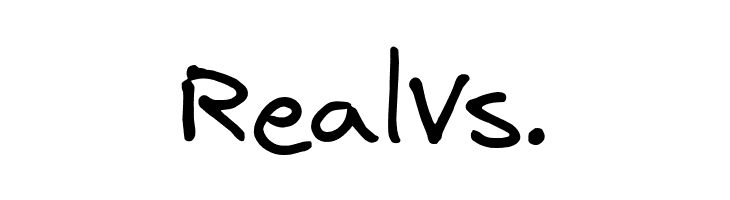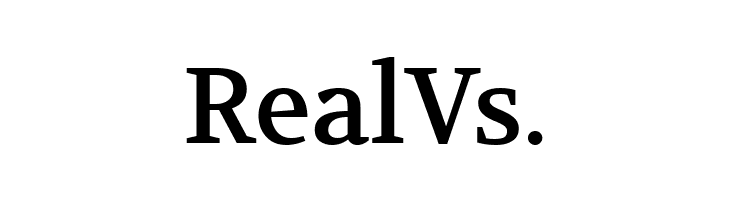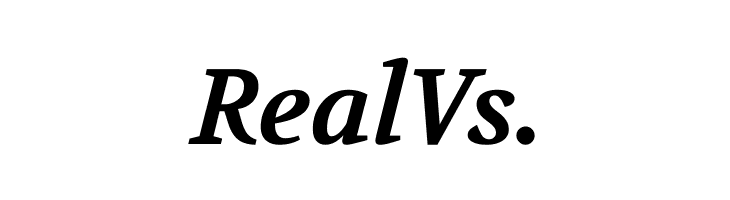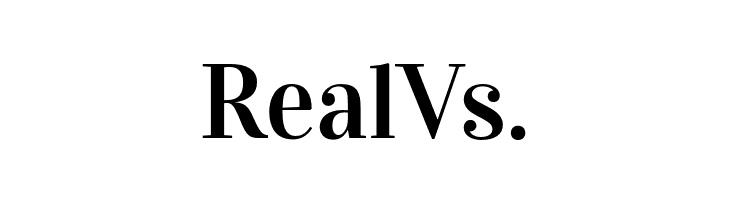
• Vidaloka-Regular
A classic serif font with high contrast and elegant strokes.
• Viga-Regular
A modern, geometric sans-serif font with a clean and professional appearance.
• VillaDidot
A decorative serif font with intricate line patterns and a vintage-modern appeal.
• VillaDidot-Black
A bold, high-contrast serif font with elegant and classic features.
• VillaDidot-Carved
A carved, textured serif font with a modern twist.
• VillaDidot-Cutout
A bold, cutout-style font with high contrast and geometric shapes.
• VillaDidot-Outline
An elegant outline serif font with high contrast and refined details.
• VILLAJUAREZ SON DISPLAY
A bold, geometric font with Art Deco influences and decorative frames.
• Vintage Decorative Signs 4
• VIP Roman Regular
A classic serif typeface with elegant proportions and refined strokes.
• VIPRoman-Regular
A classic serif font with elegant, balanced letterforms and pronounced serifs.
• Virgil3YOFF
A casual, handwritten font with a playful and approachable style.
• Visionaries
A bold, angular font with a three-dimensional, futuristic style.
• Visionaries 2
A bold, angular font with a futuristic and edgy design.
• Viva La Vida
• Voker
A futuristic, geometric font with blocky, angular letterforms.
• Volkhov Bold
A bold serif font with classic elegance and modern appeal.
• Volkhov Bold Italic
A bold, italic serif font with a classic yet modern appeal.
• Volkhov Italic
An elegant italic serif font with smooth, flowing lines and a classic feel.
• Volkhov Regular
A classic serif font with moderate contrast and elegant readability.
• Volkhov-BoldItalic